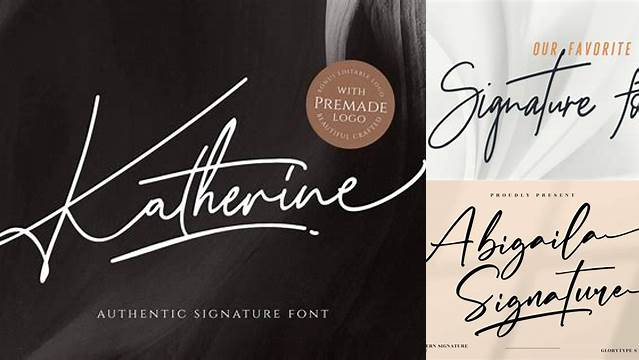
Free Signature Fonts For Commercial Use: Top Picks
Hey guys! Finding the perfect signature font for your brand or project can be a game-changer. But let's be real, not everyone has the budget to splurge on premium fonts. That's why I've rounded up some amazing free signature fonts for commercial use. Let's dive in and find the perfect fit for you!
Why Choose a Signature Font?
Using a signature font can add a personal and elegant touch to your branding. It brings a sense of authenticity and sophistication, making your designs stand out. Whether you're designing logos, invitations, or website headers, a well-chosen signature font can make all the difference. A free signature font for commercial use is also a great way to save money, especially when you're just starting out. You don’t need to compromise on quality, though. Plenty of excellent options are available that can give your work a professional and polished look. Think about the overall message you want to convey. Are you aiming for a modern and minimalist aesthetic, or something more traditional and ornate? Your choice of font should reflect your brand identity and appeal to your target audience. Signature fonts can also be used for personal projects, such as creating personalized stationery or designing unique gifts. They’re versatile and can be adapted to suit a wide range of applications. In the digital age, where everything can feel a bit impersonal, a signature font adds a human touch that resonates with viewers. It’s a way to connect on a deeper level and create a lasting impression. So, explore the possibilities and find the free signature font for commercial use that best represents you and your work.
1. Best Free Script Fonts for Branding
When it comes to branding, script fonts can really elevate your designs, adding a touch of elegance and personality. A free signature font for commercial use can be a game-changer, especially for small businesses or startups looking to create a unique brand identity without breaking the bank. Think about how the font will represent your brand's values and aesthetics. A flowing, cursive script might convey sophistication and creativity, while a bolder, more modern script could suggest confidence and innovation. Make sure the font is legible and scalable, so it looks good on everything from business cards to website headers. Don't be afraid to experiment with different font pairings. Combining a script font with a clean, sans-serif font can create a balanced and visually appealing look. Using a free signature font for commercial use doesn't mean you have to compromise on quality. Many talented designers offer free versions of their fonts, allowing you to access professional-grade typography without the hefty price tag. Just be sure to check the license terms to ensure the font is indeed free for commercial use. You can use these fonts for logos, marketing materials, and even social media graphics. A consistent use of your chosen font across all platforms will help reinforce your brand identity and create a cohesive look. Remember, your font choice is a crucial part of your brand's visual language, so choose wisely!
2. Top Free Calligraphy Fonts for Commercial Projects
Calligraphy fonts bring a touch of artistry and sophistication to any commercial project. Finding a free signature font for commercial use in this style can be a real treasure. Calligraphy fonts often evoke feelings of luxury, craftsmanship, and attention to detail, making them perfect for high-end brands or projects that aim to convey a sense of exclusivity. Think about the specific mood you want to create. A delicate, flowing calligraphy font might be ideal for wedding invitations or beauty product packaging, while a bolder, more structured calligraphy font could work well for restaurant menus or boutique logos. Legibility is key, so make sure your chosen font is easy to read, even at smaller sizes. Consider the overall design and how the calligraphy font will complement other elements. Using a free signature font for commercial use allows you to experiment with different styles without the financial commitment. Take advantage of online resources and font libraries to discover hidden gems. Remember to always double-check the license terms to ensure the font is free for commercial use and that you're complying with the designer's requirements. Calligraphy fonts can add a unique and personal touch to your projects, helping you stand out from the competition. Whether you're designing brochures, websites, or marketing materials, a well-chosen calligraphy font can make a lasting impression.
3. Free Handwritten Fonts for Logos
Handwritten fonts can give your logo a personal and approachable feel. When you're looking for a free signature font for commercial use for your logo, think about the message you want to convey. Do you want your brand to appear friendly and casual, or sophisticated and elegant? A handwritten font can communicate these nuances effectively. Consider the legibility of the font, especially at smaller sizes. Your logo needs to be easily readable, even on business cards or website favicons. Think about how the font will work with your brand's colors and other design elements. A handwritten font can add a unique touch that sets your logo apart from the competition. Using a free signature font for commercial use allows you to test different styles and see what resonates best with your target audience. Don't be afraid to experiment with different weights and variations of the font to find the perfect fit. Check the font's license carefully to ensure it's free for commercial use and that you understand any restrictions or requirements. Handwritten fonts can be a great way to create a memorable and authentic brand identity.
4. Free Signature Style Fonts for Websites
Adding a signature style font to your website can give it a unique and personal touch. Finding a free signature font for commercial use that complements your website's overall design is crucial. Think about the tone and message you want to convey. A handwritten font can add warmth and authenticity, while a more formal script font can communicate elegance and sophistication. Consider the readability of the font, especially for body text and headings. Your website needs to be easy to navigate and read, so choose a font that's clear and legible. Think about how the font will work with your website's color scheme and imagery. A signature style font can be used for headings, logos, and even as a decorative element. Using a free signature font for commercial use allows you to enhance your website's visual appeal without breaking the bank. Don't be afraid to experiment with different font pairings to create a balanced and visually appealing design. Always check the font's license to ensure it's free for commercial use and that you comply with any terms or conditions. A well-chosen signature style font can significantly enhance your website's branding and user experience.
5. Modern Free Signature Fonts
For a contemporary edge, modern signature fonts are the way to go. When searching for a free signature font for commercial use that fits this style, look for clean lines and a minimalist aesthetic. These fonts often have a sleek and sophisticated look, making them perfect for brands that want to project a modern and innovative image. Consider the legibility of the font, ensuring it's easy to read on both screens and print materials. Think about how the font will complement your brand's overall design and messaging. A modern signature font can be used for logos, website headers, and marketing materials. Using a free signature font for commercial use allows you to achieve a professional look without the high cost. Experiment with different weights and styles to find the perfect balance. Make sure to check the font's license to confirm it's free for commercial use and that you understand any restrictions. Modern signature fonts can help your brand stand out in a competitive market.
6. Elegant Free Signature Fonts
Elegance is timeless, and an elegant signature font can reflect that in your designs. If you're looking for a free signature font for commercial use that exudes sophistication, focus on fonts with delicate strokes and refined curves. These fonts are perfect for brands that want to convey a sense of luxury, grace, and attention to detail. Consider the readability of the font, ensuring it's clear and legible in various sizes. Think about how the font will pair with other design elements, such as colors and imagery. An elegant signature font can be used for wedding invitations, high-end product packaging, and exclusive branding materials. Using a free signature font for commercial use allows you to create a high-end look without the premium price tag. Explore different variations and weights to find the perfect fit for your project. Always check the font's license to ensure it's free for commercial use and that you understand the terms. Elegant signature fonts can elevate your designs and create a lasting impression.
7. Free Signature Fonts for Business Cards
Your business card is often the first impression people have of your brand, so choosing the right font is crucial. A free signature font for commercial use can add a personal and memorable touch. When selecting a font for your business card, prioritize readability. Make sure your name, title, and contact information are easy to read at a small size. Consider the overall design of your business card and how the font will complement the other elements. Think about the message you want to convey – a handwritten font can feel personal and approachable, while a more formal script can communicate professionalism and elegance. Using a free signature font for commercial use allows you to experiment with different styles without incurring extra costs. Test different font pairings to find a combination that works well together. Always check the font's license to ensure it's free for commercial use and that you understand any limitations. A well-chosen signature font can make your business card stand out and leave a lasting impression.
8. Free Signature Fonts for Invitations
Invitations call for a touch of elegance and personalization, and a signature font can deliver just that. Finding a free signature font for commercial use suitable for invitations can add a unique flair. Consider the type of event – a wedding invitation might call for a delicate and romantic script, while a birthday party invitation could benefit from a more playful and casual handwritten font. Ensure the font is legible, even with decorative flourishes. The invitation should be easy to read and understand. Think about how the font will complement the overall design of the invitation, including the colors, images, and layout. Using a free signature font for commercial use allows you to create beautiful and personalized invitations without exceeding your budget. Experiment with different font combinations to achieve the perfect look. Always check the font's license to ensure it's free for commercial use and that you comply with the terms. A thoughtfully chosen signature font can make your invitations truly special and memorable.
9. Free Signature Fonts for Social Media
Social media is all about making a statement, and the right font can help you do just that. A free signature font for commercial use can add personality and flair to your posts. Consider your brand's voice and aesthetic when choosing a font. A handwritten font can convey authenticity and approachability, while a more stylized script can project sophistication and elegance. Ensure the font is readable on various devices, from smartphones to desktops. Your social media content needs to be easily accessible to your audience. Think about how the font will work with your images and videos. Using a free signature font for commercial use allows you to create visually appealing content without spending a fortune. Experiment with different font pairings to find a combination that grabs attention. Always check the font's license to ensure it's free for commercial use and that you understand the guidelines. A strategic use of signature fonts can enhance your brand's presence on social media and attract more followers.
10. Best Free Fonts for Autographs
Creating digital autographs? You'll need the perfect font. Look for a free signature font for commercial use that mimics natural handwriting. Consider the style and personality you want to convey. A flowing, elegant script can feel sophisticated, while a bolder, more casual font can come across as friendly and approachable. Ensure the font is legible and looks authentic. The autograph should be easy to read and resemble a real signature. Think about how the font will work with the background and other design elements. Using a free signature font for commercial use allows you to create personalized autographs without the expense. Experiment with different fonts to find one that reflects your unique style. Always check the font's license to ensure it's free for commercial use and that you adhere to the terms. A well-chosen font can make your digital autographs stand out.
11. Free Signature Fonts for Watermarks
Protecting your work with watermarks is essential, and a signature font can add a personal touch. Search for a free signature font for commercial use that is both legible and subtle. Consider the style of your work and choose a font that complements it. A delicate script might be ideal for photography, while a bolder font could work well for graphic designs. Ensure the font is readable but doesn't distract from the main image. The watermark should protect your work without being too intrusive. Think about the placement and size of the watermark. Using a free signature font for commercial use allows you to create professional-looking watermarks without extra cost. Experiment with different opacity levels to find the right balance. Always check the font's license to ensure it's free for commercial use and that you comply with the guidelines. A well-designed watermark can safeguard your intellectual property.
12. Free Signature Fonts for eBooks
Adding a signature touch to your eBooks can enhance their visual appeal. Find a free signature font for commercial use that suits the book's genre and tone. Consider the style of the eBook – a formal font might be appropriate for academic texts, while a more casual font could work for fiction. Ensure the font is legible and easy to read on digital devices. The eBook should be accessible and enjoyable for readers. Think about using the signature font for headings or chapter titles. Using a free signature font for commercial use allows you to create a professional-looking eBook without exceeding your budget. Experiment with different sizes and weights to find the right balance. Always check the font's license to ensure it's free for commercial use and that you understand the terms. A well-chosen font can enhance the reading experience.
13. Cursive Free Signature Fonts
Cursive fonts are a classic choice for adding elegance and flair to your designs. When looking for a free signature font for commercial use in cursive, consider the overall aesthetic you want to achieve. A flowing, ornate cursive can convey sophistication and luxury, while a simpler, more modern cursive can feel approachable and contemporary. Ensure the font is legible and easy to read, even with its decorative elements. The cursive should enhance the design without sacrificing clarity. Think about how the font will pair with other elements in your design. Using a free signature font for commercial use allows you to experiment with different styles without the financial commitment. Test various font weights and sizes to find the perfect fit. Always check the font's license to ensure it's free for commercial use and that you comply with any requirements. A beautifully crafted cursive font can elevate your designs and create a lasting impression.
14. Best Free Signature Fonts for Designers
Designers need a versatile collection of fonts, and signature fonts are no exception. When searching for a free signature font for commercial use, prioritize fonts that offer flexibility and adaptability. Consider the range of projects you typically work on – a mix of formal and casual fonts can be useful. Ensure the font is high-quality and professionally designed. Your work deserves the best typography. Think about how the font will integrate with your existing design tools and workflows. Using a free signature font for commercial use allows you to expand your font library without breaking the bank. Experiment with different styles and weights to discover new creative possibilities. Always check the font's license to ensure it's free for commercial use and that you understand the terms. A great signature font can enhance your design projects and set you apart from the competition.
15. Professional Free Signature Fonts
For a polished and sophisticated look, professional signature fonts are essential. When seeking a free signature font for commercial use that conveys professionalism, look for fonts with clean lines and a timeless appeal. Consider the industries you're designing for – a corporate brand might require a more formal font, while a creative agency could benefit from a more playful option. Ensure the font is legible and readable in various sizes and formats. The font should communicate professionalism and attention to detail. Think about how the font will integrate with your client's branding. Using a free signature font for commercial use allows you to create high-quality designs without exceeding your budget. Experiment with different font pairings to achieve the perfect balance. Always check the font's license to ensure it's free for commercial use and that you understand the guidelines. A well-chosen professional signature font can elevate your designs and impress your clients.
16. Unique Free Signature Fonts
Stand out from the crowd with a unique signature font. When searching for a free signature font for commercial use that offers originality, look for fonts with distinctive characteristics and unusual details. Consider the message you want to convey – a quirky font can add personality, while an avant-garde font can project innovation. Ensure the font is legible and still functional despite its unique features. The font should enhance the design without sacrificing readability. Think about how the font will complement your overall brand identity. Using a free signature font for commercial use allows you to create memorable designs without the premium cost. Experiment with different font pairings and design elements to maximize its impact. Always check the font's license to ensure it's free for commercial use and that you comply with the terms. A unique signature font can help your brand make a statement and capture attention.
17. Simple Free Signature Fonts
Sometimes, simplicity is key. A simple signature font can be incredibly effective for conveying a sense of minimalism and elegance. When looking for a free signature font for commercial use that embodies simplicity, choose fonts with clean lines and minimal ornamentation. Consider the overall aesthetic of your project – a simple font can complement a modern or minimalist design. Ensure the font is legible and easy to read in various sizes and contexts. The font should enhance the design without adding unnecessary complexity. Think about how the font will work with other design elements, such as colors and imagery. Using a free signature font for commercial use allows you to create clean and sophisticated designs without spending a fortune. Experiment with different font weights and sizes to achieve the desired effect. Always check the font's license to ensure it's free for commercial use and that you understand the terms. A simple signature font can add a touch of understated elegance to your designs.
18. Bold Free Signature Fonts
Make a statement with bold signature fonts. When searching for a free signature font for commercial use that commands attention, look for fonts with thick strokes and strong presence. Consider the overall tone and message of your project – a bold font can convey confidence, strength, and authority. Ensure the font is legible and easily readable, even at larger sizes. The font should enhance the design and draw the eye. Think about how the font will work with other design elements, such as headlines and subheadings. Using a free signature font for commercial use allows you to create impactful designs without breaking the bank. Experiment with different font pairings to balance the boldness with readability. Always check the font's license to ensure it's free for commercial use and that you comply with the guidelines. A bold signature font can make your designs stand out and leave a lasting impression.
19. Light Free Signature Fonts
For a delicate and airy feel, consider light signature fonts. When searching for a free signature font for commercial use that offers a subtle touch, look for fonts with thin strokes and a graceful appearance. Consider the overall mood of your project – a light font can convey elegance, sophistication, and a sense of lightness. Ensure the font is legible and readable, especially against darker backgrounds. The font should enhance the design without overpowering it. Think about how the font will work with other design elements, such as images and illustrations. Using a free signature font for commercial use allows you to create refined and elegant designs without the high cost. Experiment with different font pairings to achieve a balanced look. Always check the font's license to ensure it's free for commercial use and that you understand the terms. A light signature font can add a touch of understated beauty to your designs.
20. Rounded Free Signature Fonts
Rounded signature fonts can add a friendly and approachable feel to your designs. When searching for a free signature font for commercial use that conveys warmth and openness, look for fonts with soft curves and rounded edges. Consider the overall message of your project – a rounded font can create a welcoming and inviting atmosphere. Ensure the font is legible and easy to read, even at smaller sizes. The font should enhance the design without appearing too informal. Think about how the font will work with other design elements, such as logos and icons. Using a free signature font for commercial use allows you to create friendly and engaging designs without spending a lot of money. Experiment with different font weights and sizes to achieve the desired effect. Always check the font's license to ensure it's free for commercial use and that you comply with the guidelines. A rounded signature font can make your designs more appealing and approachable.
21. Serif Free Signature Fonts
Serif fonts bring a traditional and classic touch to signature styles. When you're on the hunt for a free signature font for commercial use and want that timeless look, consider serif options. Serif fonts often communicate trustworthiness and reliability. Think about how the font will represent your brand – a serif font can give a sense of history and authority. Ensure that the chosen font is legible and scales well. It should look good both online and in print. Consider how the serifs interact with the overall design. Using a free signature font for commercial use lets you explore classic typography without the upfront cost. Experiment with different serif styles to find the perfect match for your project. Always verify the font's license to confirm its free commercial use status and adhere to any specified terms. A well-selected serif signature font can add a layer of sophistication and credibility to your work.
22. Sans-Serif Free Signature Fonts
For a more modern and minimalist signature style, sans-serif fonts are a great choice. A free signature font for commercial use in sans-serif offers a clean and contemporary look. Sans-serif fonts often convey simplicity and clarity. Consider how the font will align with your brand’s modern aesthetic. Make sure the font is easily readable across different media and sizes. It should maintain its clarity on screens and in print. Think about the font’s weight and spacing and how it complements other design elements. Using a free signature font for commercial use lets you achieve a sleek design without the expense. Try out different sans-serif options to find the one that best suits your project's needs. Always double-check the font’s license to ensure it is indeed free for commercial use and to comply with any usage guidelines. A well-chosen sans-serif signature font can bring a modern and streamlined feel to your designs.
23. Brush Free Signature Fonts
Brush fonts add an artistic and hand-painted feel to your signature design. If you’re seeking a free signature font for commercial use and love the hand-lettered style, brush fonts are an excellent option. Brush fonts can communicate creativity and spontaneity. Consider how the font will reflect your brand’s artistic vibe. Check that the font is legible, even with its textured appearance. It should maintain readability across various applications. Think about how the brush strokes will interact with your design and create visual interest. Using a free signature font for commercial use enables you to add a handmade touch without paying a premium. Play around with different brush styles to find the perfect fit for your project. Always confirm the font's license to ensure it is free for commercial purposes and that you follow any provided guidelines. A brush signature font can bring a unique and artistic flair to your designs.
24. Distressed Free Signature Fonts
Distressed fonts offer a vintage and weathered look to your signature style. If you’re looking for a free signature font for commercial use and want to add a touch of history, distressed fonts are the way to go. Distressed fonts can convey authenticity and a sense of the past. Think about how the font will complement your brand’s vintage or rustic aesthetic. Make sure the font remains legible, despite its worn appearance. It should still be readable both online and in print. Consider how the distressed elements enhance your overall design. Using a free signature font for commercial use allows you to create a vintage feel without the usual cost. Experiment with different distressed styles to find the perfect match for your project. Always verify the font’s license to ensure it is free for commercial use and that you comply with any stated terms. A distressed signature font can add character and a unique historical vibe to your designs.
25. Outline Free Signature Fonts
Outline fonts provide a modern and clean look to your signature design. When searching for a free signature font for commercial use with a minimalist touch, outline fonts can be an excellent choice. Outline fonts often convey simplicity and elegance. Consider how the font will align with your brand's modern aesthetic. Ensure the font is legible and maintains its clarity across different sizes and applications. Think about how the outline style enhances the overall design. Using a free signature font for commercial use allows you to achieve a sleek design without the expense. Try out different outline options to find the one that best suits your project's needs. Always double-check the font's license to ensure it is free for commercial use and to comply with any usage guidelines. A well-chosen outline signature font can bring a modern and refined feel to your designs.
26. Retro Free Signature Fonts
Retro fonts add a nostalgic and vintage vibe to your signature style. If you’re looking for a free signature font for commercial use and want to evoke a sense of the past, retro fonts are a great choice. Retro fonts can communicate fun, nostalgia, and a sense of history. Think about how the font will complement your brand’s vintage aesthetic. Check that the font is legible, even with its retro design elements. It should maintain readability across various applications. Consider how the retro style enhances your overall design. Using a free signature font for commercial use enables you to add a unique retro touch without paying a premium. Play around with different retro styles to find the perfect fit for your project. Always confirm the font's license to ensure it is free for commercial purposes and that you follow any provided guidelines. A retro signature font can bring a unique and nostalgic flair to your designs.
27. Textured Free Signature Fonts
Textured fonts bring depth and visual interest to your signature design. When you're seeking a free signature font for commercial use that isn't flat, texture can be a great addition. Consider how the texture aligns with your brand’s overall aesthetic. Make sure the font remains legible despite the added texture. Using a free signature font for commercial use lets you achieve a unique look without the cost. Experiment with different textured fonts to find the best match. Always verify the font’s license to ensure commercial use and compliance with guidelines. A textured signature font can bring a distinctive tactile feel to your designs.
28. Condensed Free Signature Fonts
Condensed fonts offer a space-saving and modern solution for your signature design. If you’re looking for a free signature font for commercial use and need to fit more text into a limited area, condensed fonts can be a great choice. Consider how the condensed style aligns with your brand's modern aesthetic. Ensure the font remains legible, even with its narrower form. Using a free signature font for commercial use enables you to maximize space without sacrificing style. Experiment with different condensed fonts to find the best fit. Always confirm the font's license to ensure commercial use and compliance with guidelines. A condensed signature font can bring a sleek and efficient look to your designs.
29. Layered Free Signature Fonts
Layered fonts offer a customizable and dynamic look for your signature design. When you're seeking a free signature font for commercial use with depth, consider layering options. Think about how the layers will align with your brand's overall style. Ensure that each layer complements the others and maintains legibility. Using a free signature font for commercial use allows for unique creativity. Experiment with different layering techniques to find the perfect blend. Always verify the font’s license for commercial use and compliance. A layered signature font can bring a sophisticated, multi-dimensional feel to your designs.
30. Variable Free Signature Fonts
Variable fonts offer unprecedented flexibility and control for your signature design. If you’re looking for a free signature font for commercial use and want to fine-tune every detail, variable fonts are the future. Consider how the variable axes (weight, width, slant, etc.) can align with your brand's specific needs. Ensure that the adjustments maintain legibility and brand consistency. Using a free signature font for commercial use allows for precision and customization. Experiment with different settings to find the perfect variation. Always confirm the font's license for commercial use and compliance. A variable signature font can bring a highly tailored and responsive feel to your designs.